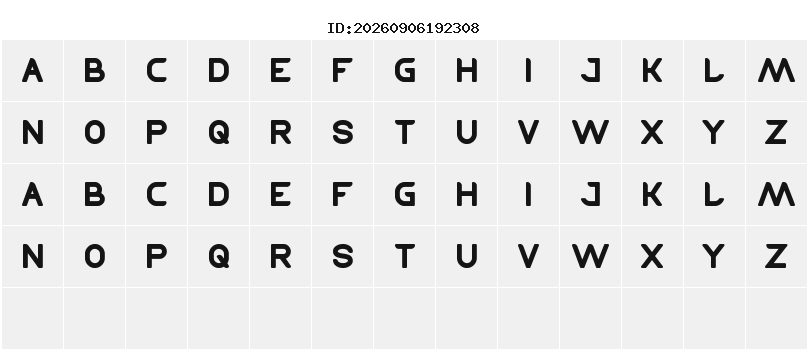
TECHNIQUE Preview
• Font Name: TECHNIQUE
• Full Font Name: TECHNIQUE
• Version: Version 1.00 July 3, 2012, initial release
About TECHNIQUE.ttf
TECHNIQUE.ttf is a modern, elegant sans-serif font designed for ultimate readability and visual harmony. Perfect for branding, headlines, web design, and print materials.